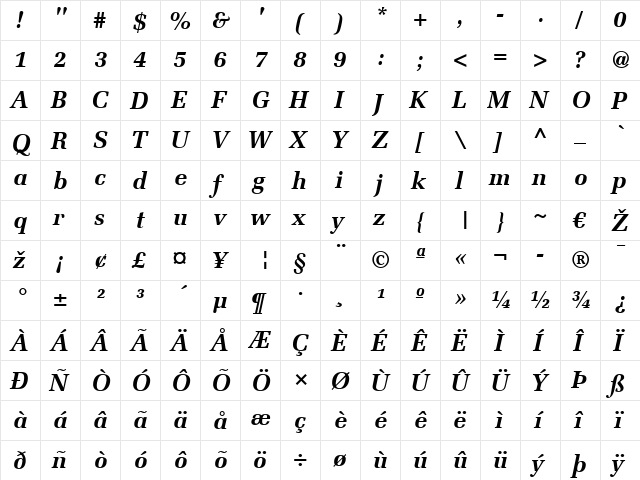
Melior LT Bold Italic
Design Context for Melior LT Typeface
Melior LT offers clean, dependable letterforms without strong stylistic allegiance, making it a practical choice for designers who need flexibility. The slanted form adds forward momentum and visual energy. The heavy weight commands attention and anchors typographic hierarchies.
Pro Tip: Use Melior LT for emphasis, pull quotes, and subheadings where its slanted energy can add rhythm to the layout.